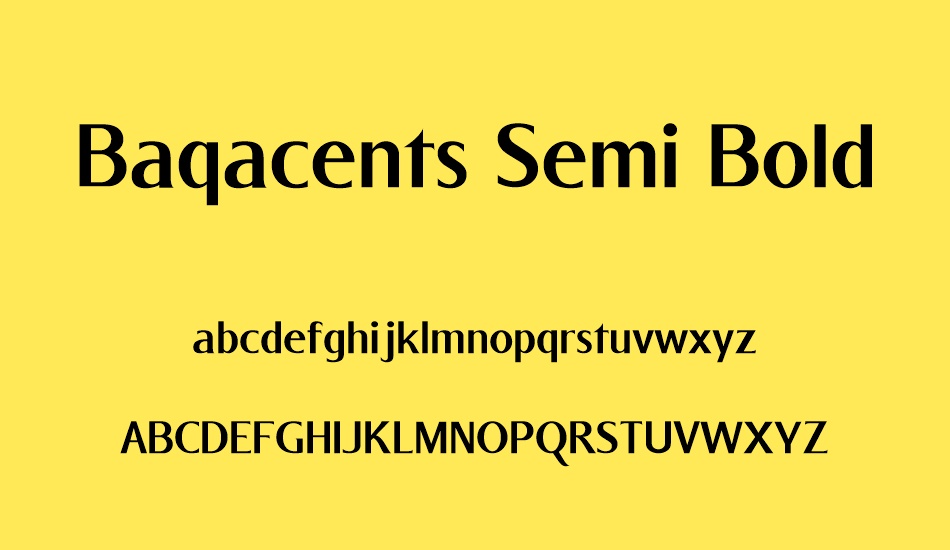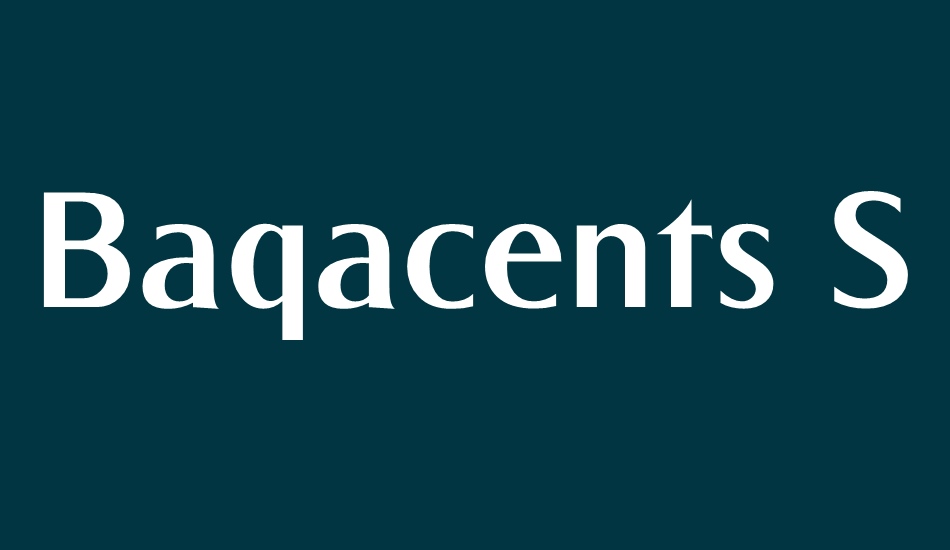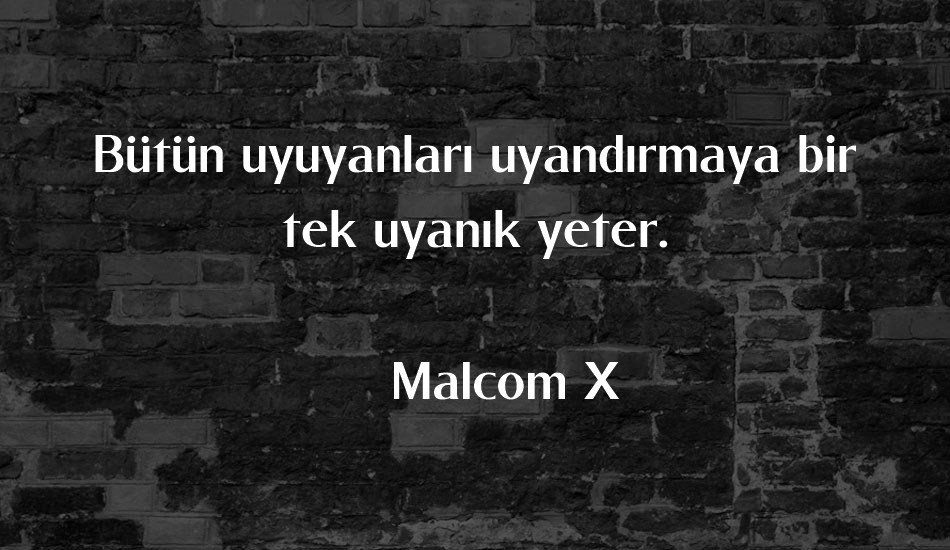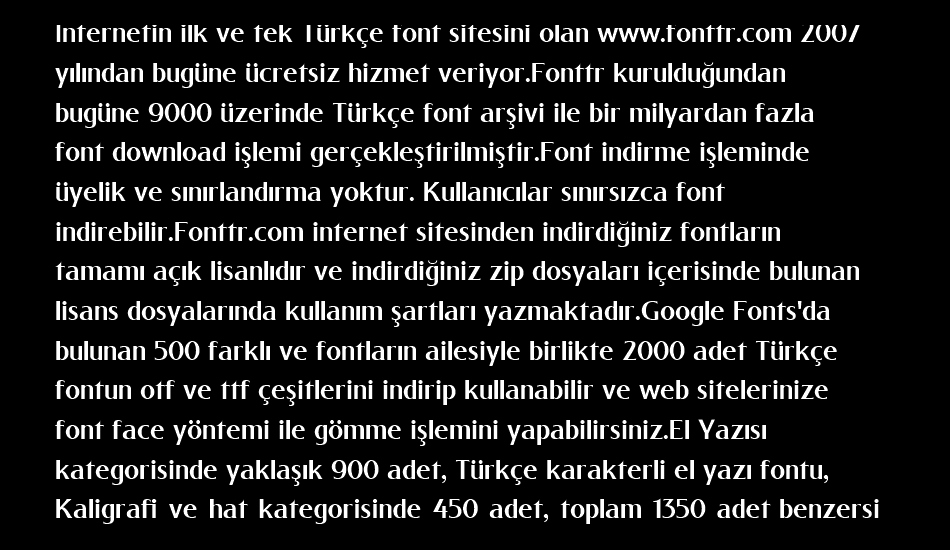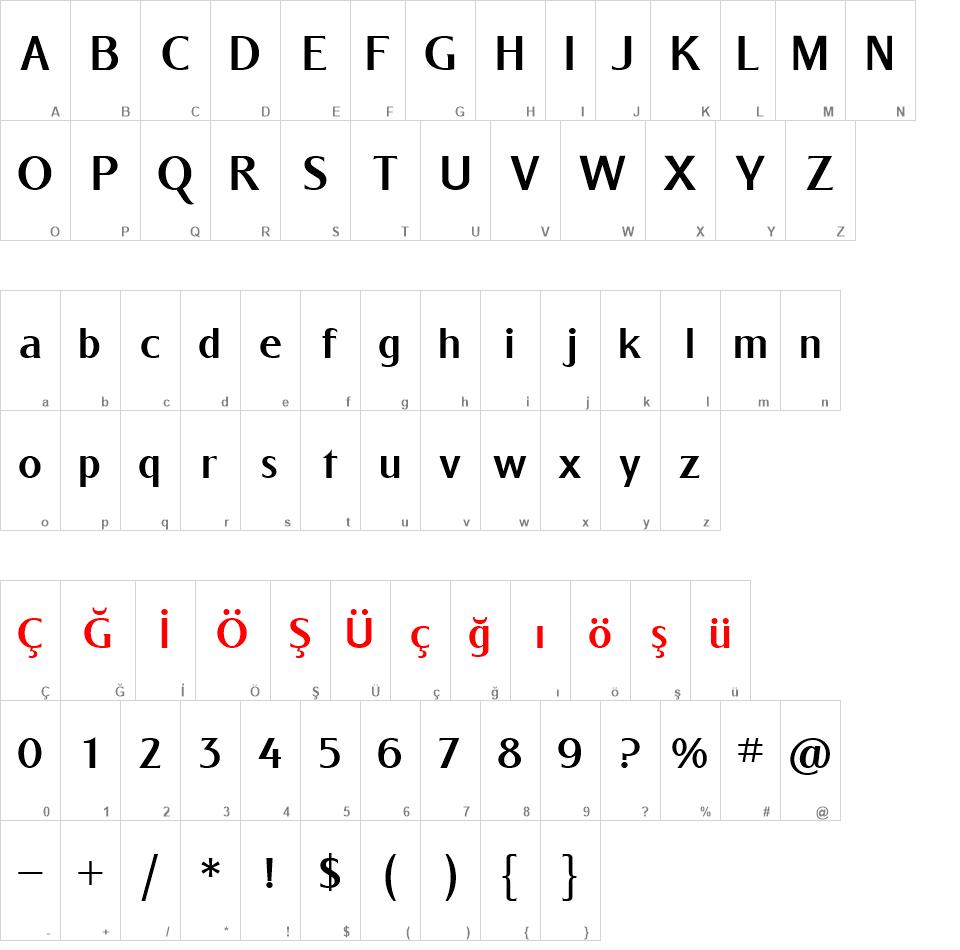
Baqacents
This font started life as an experiment in vertical-only weight progression, meaning the horizontal strokes were broadly the same weight whether you used the thinest or heaviest version of the font.
This font includes a broad range of Latin characters, as well as a monotonic Greek character set. Old style numerals and a very limited range of small caps are also available using applications that support OpenType.